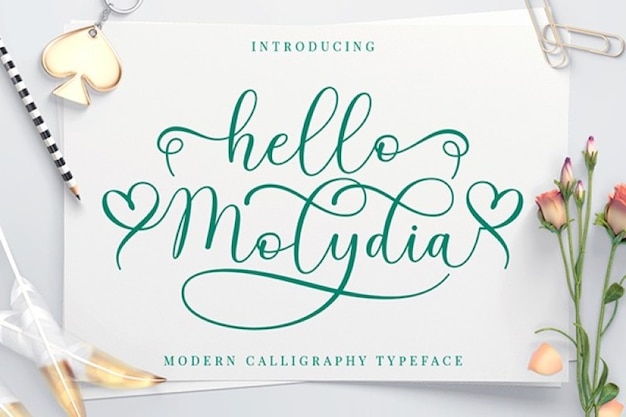
Hello Molydia Font
Hello Molydia is a pretty and elegant typeface created for all professionals who want to work on adding something unique and delicate to their projects. Its design and colors are perfect for invitation cards, wedding invitations, backgrounds, flyers, and much more. Download Molydia today and have fun creating elegant designs!